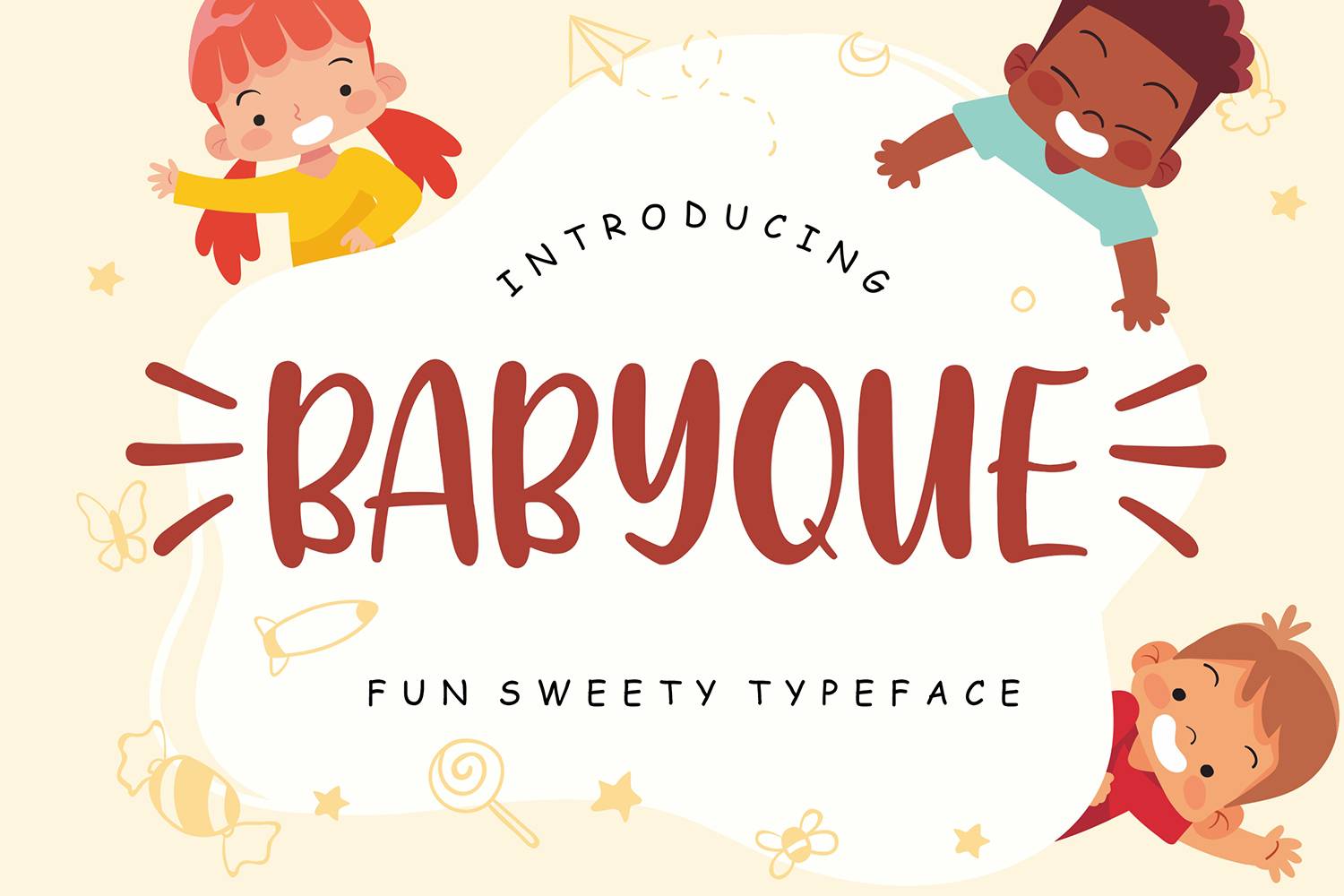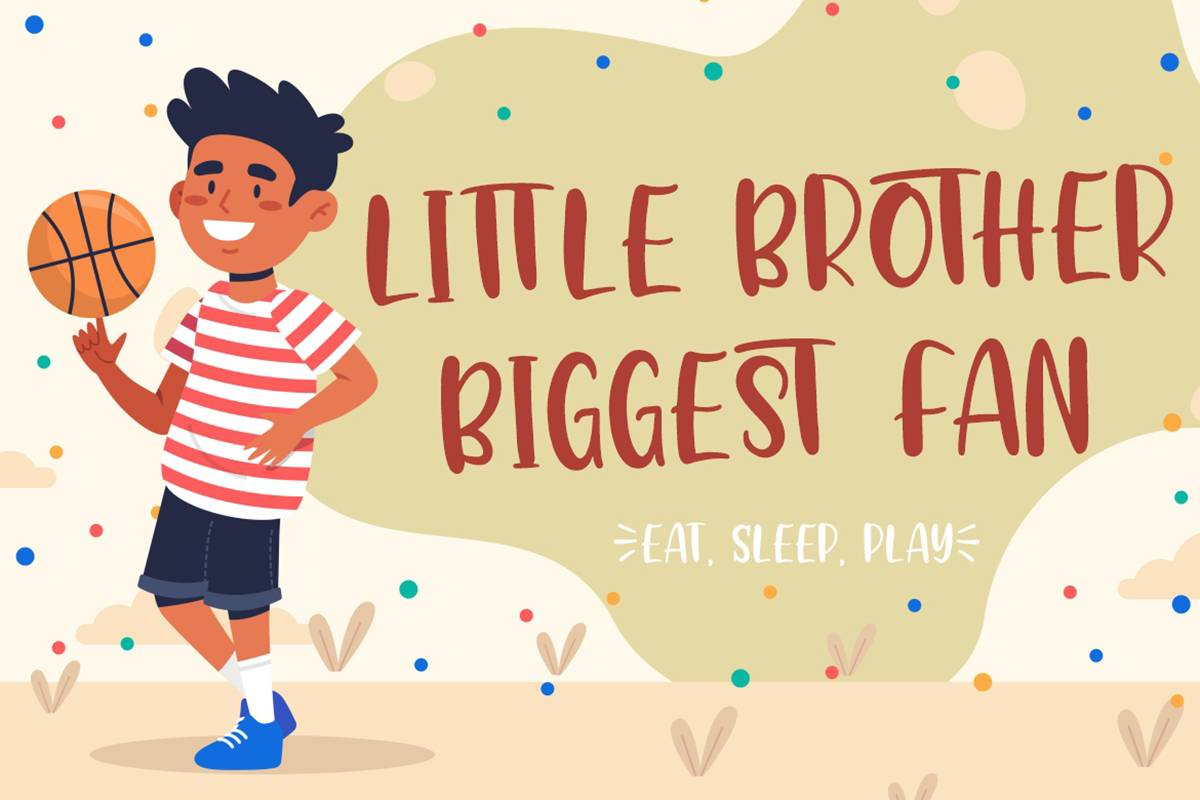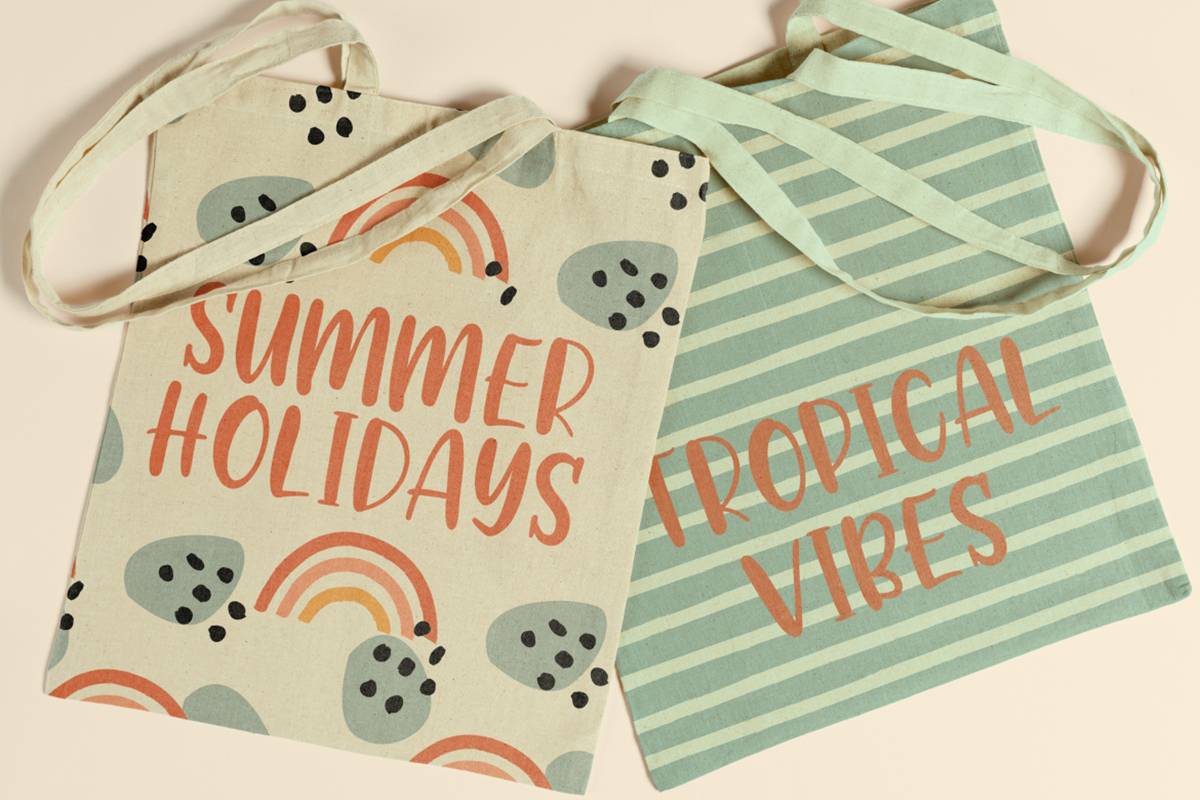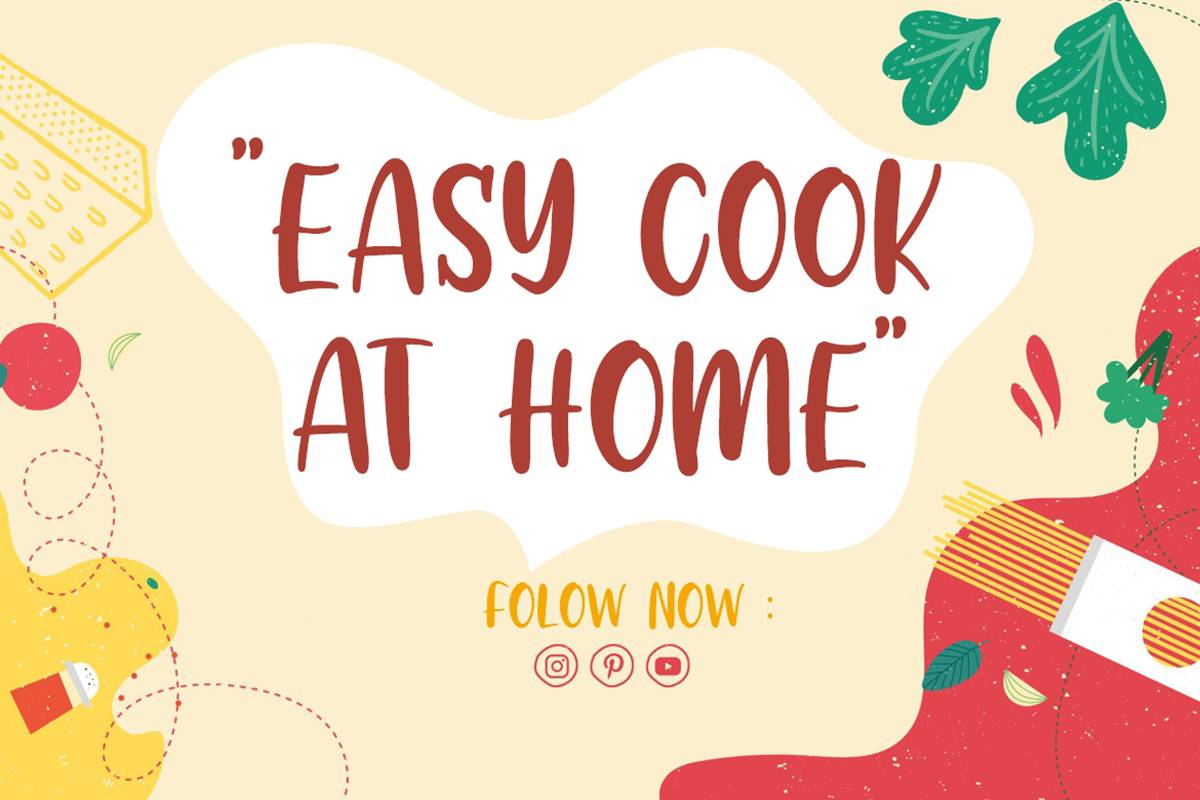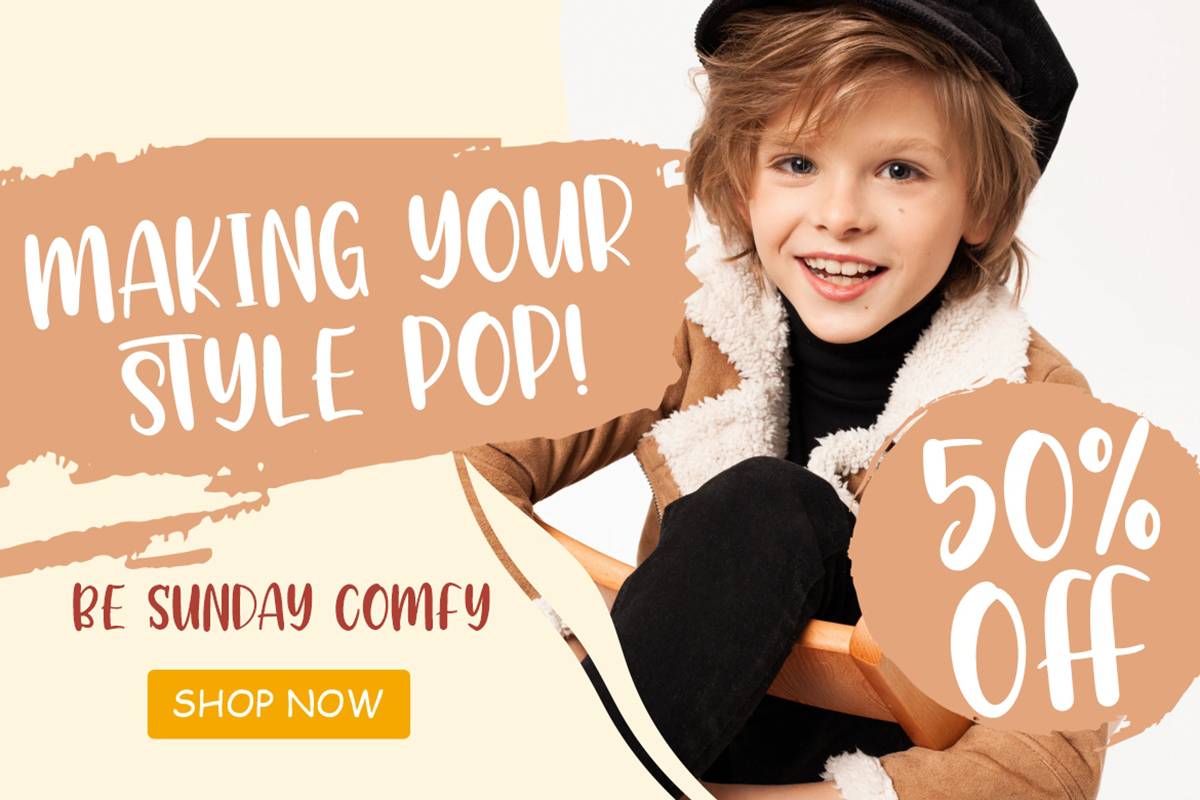
Babyque is a playful, handwritten sans serif font featuring tall, slightly condensed letterforms with a casual, brush-like stroke. Its lively and friendly character makes it ideal for creative projects, children’s branding, and informal designs where warmth and approachability are key. This font works well in logos, invitations, and packaging that aim to convey fun and creativity.
Babyque Font
About Babyque Font